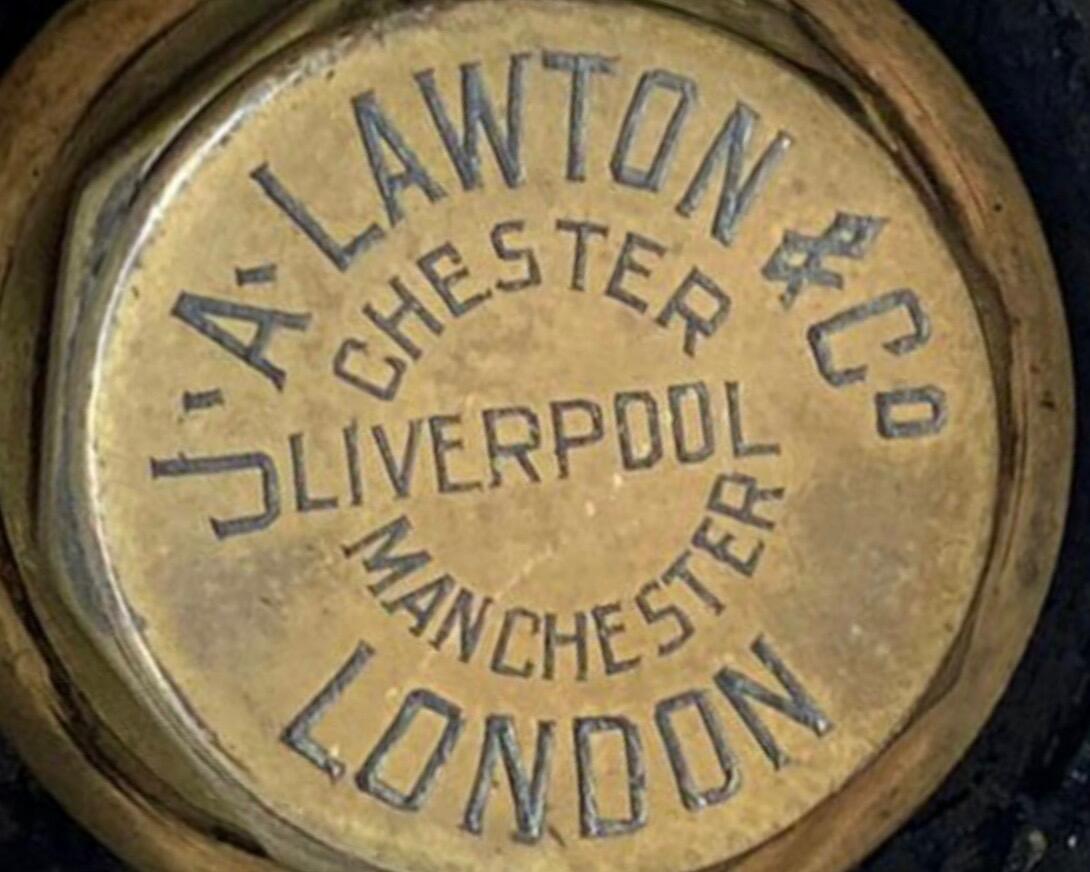
Looking for the name of this font from a horse drawn carriage (c1880 to 1900)
Hi - I am trying to identify the font shown in the image. It is from the hub of a carriage built by J A Lawton & Co between 1880 and 1900. Of particular note is the ampersand which unlike this & is very angular. Many thanks in advance!IMG_8663.jpeg.03efaacc51b224638e61420cd479004e.jpeg
No font used. It’s just lettering created for this purpose.
Thank you for the input. Do you know of a font which is similar and which uses a similar “&”?